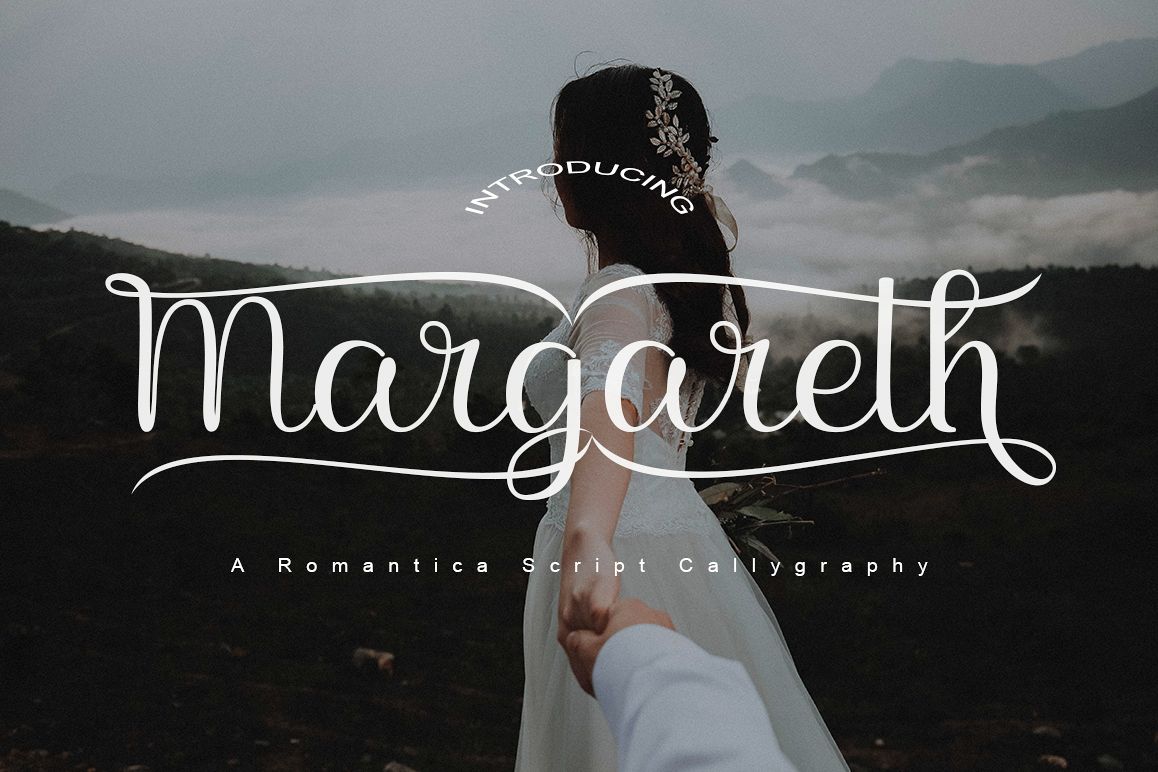
Margareth Duo Style
Margareth Font Script are duo fonts of Margareth Italic and Margareth Regular stylish calligraphy that have a varied base line, fine lines, classic and elegant touches. Can be used for various purposes. Such as title, signature, logo, wedding invitation, t-shirt, letterhead, nameplate, label, news, poster, badge etc.
Margareth Script displays alternate characters. Includes initial letters and terminals, alternatives, ligatures and multiple language support.
* Standart ligatures
* Stylistic Alternates
* Stylistic sets
* Contextual Alternates
* PUA Unicode (Private Use Areas)
* Swash
a font that made the hand by having the character up and down like a dancer. Margareth Duo Font has a very unique style of calligraphy, it is very suitable for use in the work of modern design.